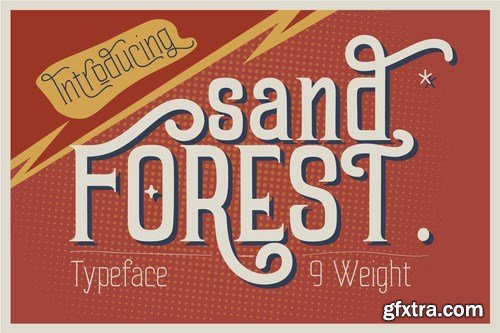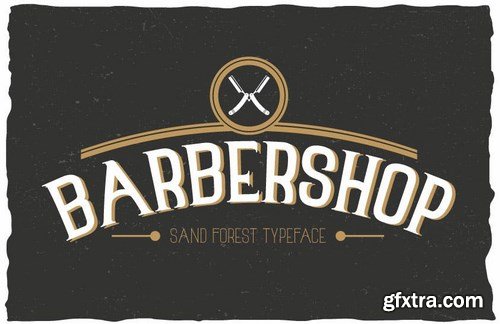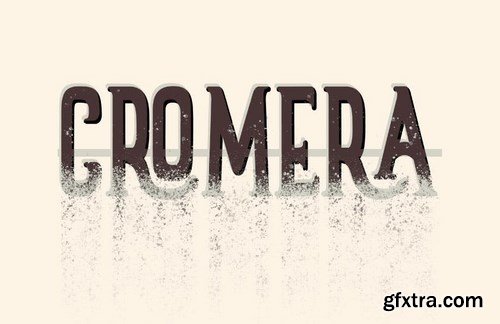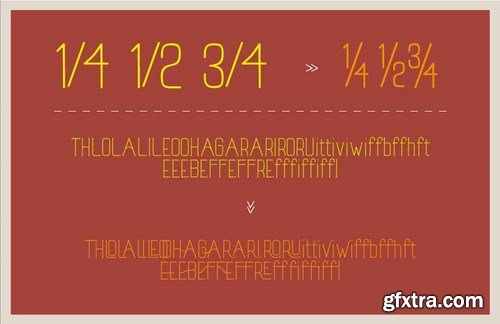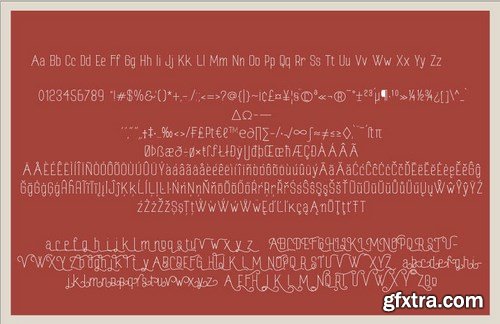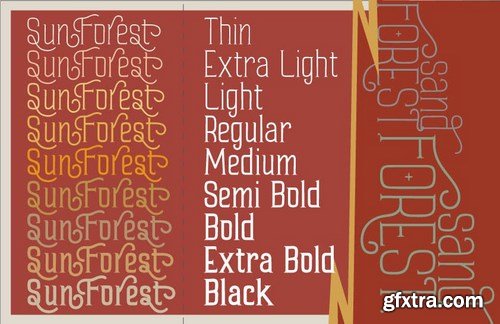
Sand Forest is a display font with a full set of uppercase and lowercase letters, multilingual symbols, numerals, punctuation, and ligatures. Sand forest retro display font 9 family, classic and retro style for poster design, magazines, branding concept.
Features
Standard glyphs uppercase and lowercase letters
Numerals, a large range of punctuation and ligatures.
Lowercase letters include ending swashes.
PUA Encoded Characters – Fully accessible without additional design software. Fonts include multilingual support for; ä ö ü Ä Ö Ü ß ¿ ¡